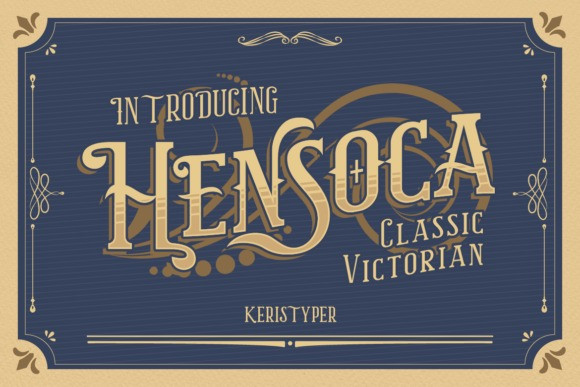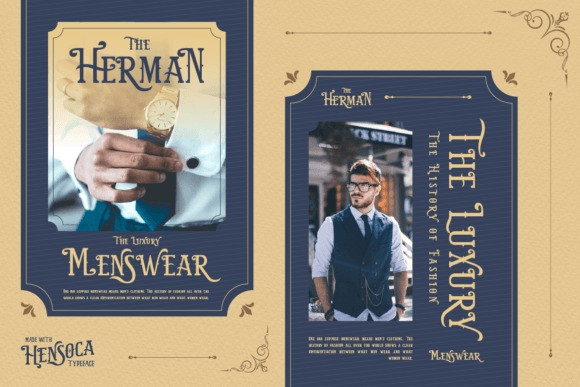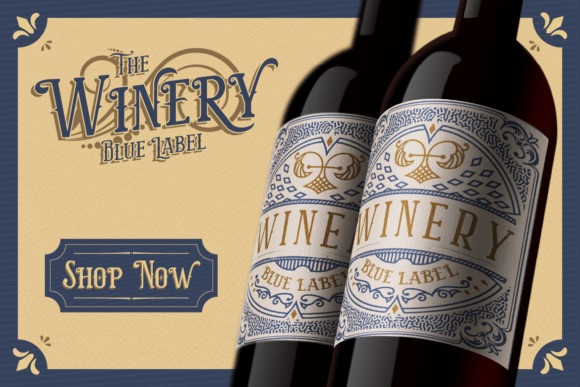
Hensoca Font
Hensoca is a typeface that is inspired by vintage victorian signs and letterhead. This font is good for logo design, Social media, Movie Titles, Books Titles, short text even long text letters, and good for your secondary text font with sans or serif.
**Featured:**
* Standard Uppercase & Lowercase
* Numeral & Punctuation
* Multilingual : ä ö ü Ä Ö Ü ß ¿ ¡
* Alternate & Ligature